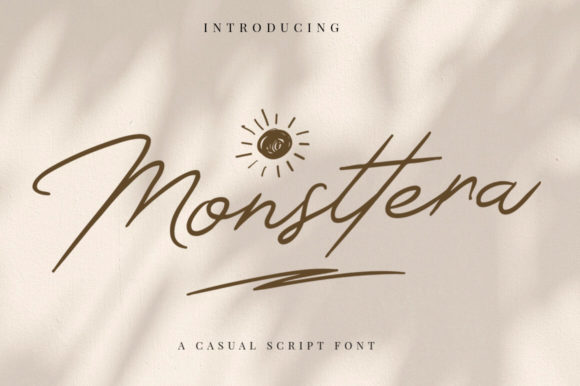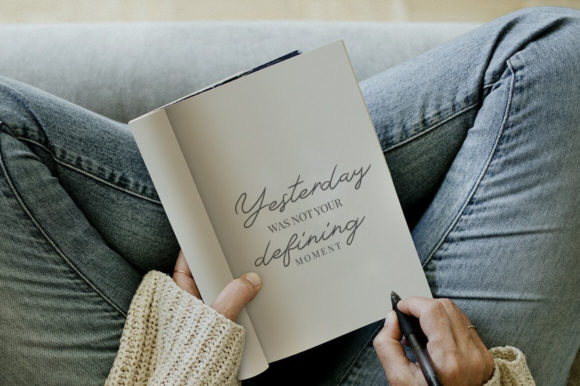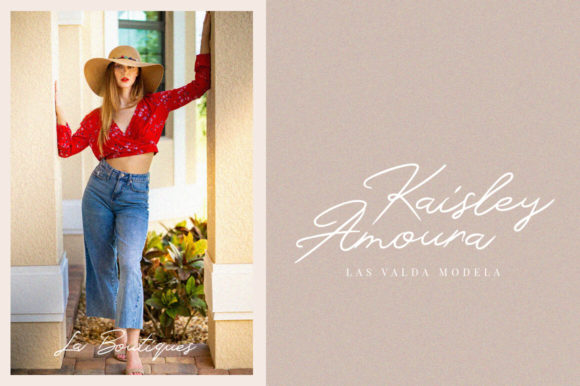
About Monsttera Font
Monsttera is a beautiful and calm handwritten font with a classic feel. Get inspired by its timeless appeal an add it to your most favorite creations!